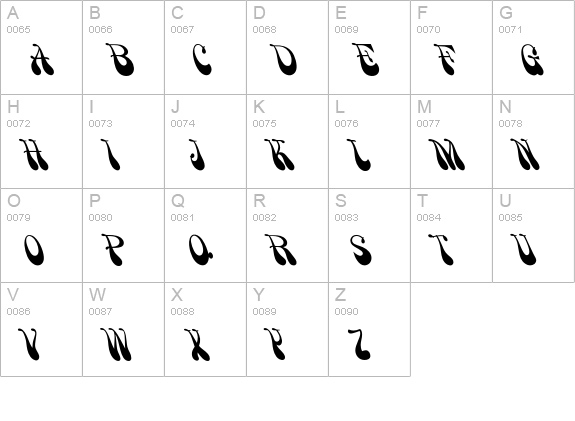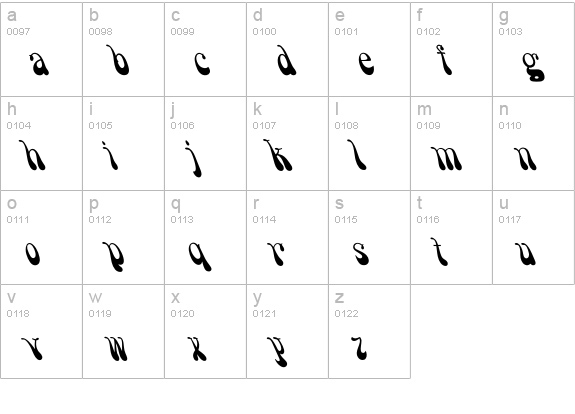
OPTISmoke Font Details
Introducing OPTISmoke font, a modern and versatile typeface that exudes elegance and sophistication. With its sleek lines and stylish curves, OPTISmoke is the perfect choice for projects that require a touch of class and professionalism. This font is ideal for various design applications, including logos, branding, packaging, and more. What sets OPTISmoke font apart is its timeless appeal and adaptability to different design styles. Whether you are working on a sleek and contemporary project or a classic and traditional one, OPTISmoke will elevate your design to the next level. And the best part? OPTISmoke font is completely free to download at FontsMarket.com. Take advantage of this amazing offer and add this stunning font to your design toolkit today. Elevate your projects with OPTISmoke font and make a lasting impression on your audience.